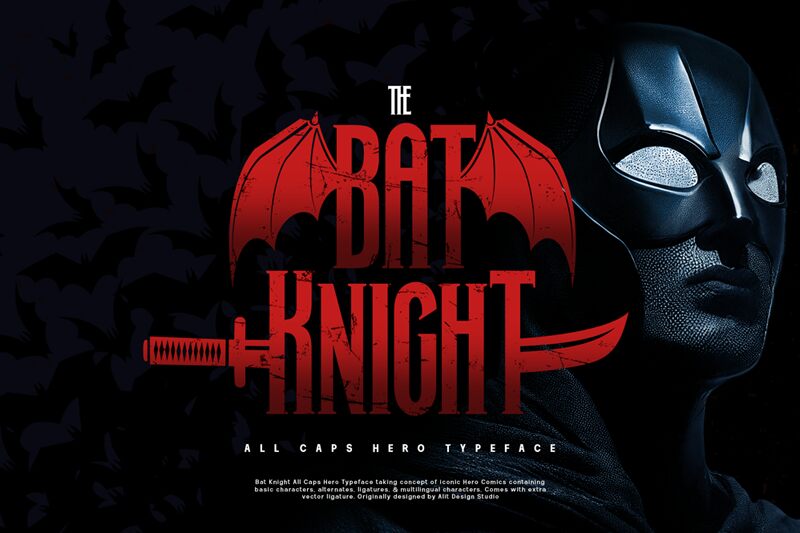
Bat Knight, a creation of Alit Design, is a gothic font that seamlessly integrates the time-honored strength of gothic letterforms with a modern twist. Its condensed style exudes confidence and efficiency, making each character stand tall with purpose and presence. The sharp edges and bold strokes channel an aura of mystery and sophistication, perfect for projects that aim to make a lasting impact.
This font's dramatic flair makes it ideal for branding materials, editorial headlines, and poster designs that demand attention. Imagine Bat Knight as the voice of luxury brands, the storyteller in evocative advertising campaigns or the signature look for cutting-edge fashion labels. It's where contemporary meets classic-a typographic choice poised to elevate any message with its distinctive charm.
Bat Knight